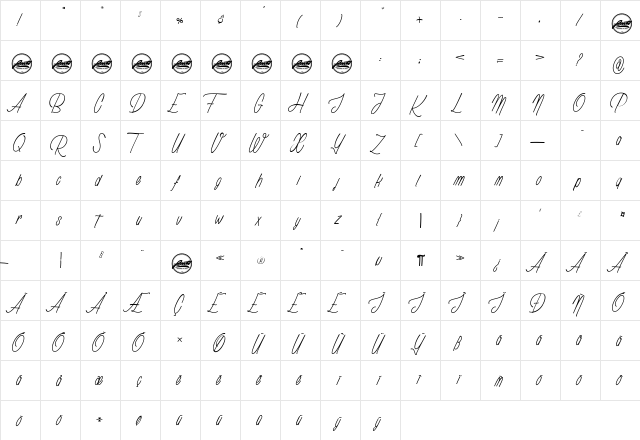
Rhapsodize Slim_PersonalUseOnly Regular
Design Context for Rhapsodize Slim_PersonalUseOnly Typeface
Rhapsodize Slim_PersonalUseOnly is a composed and adaptable typeface that performs quietly and consistently across a wide range of design contexts.